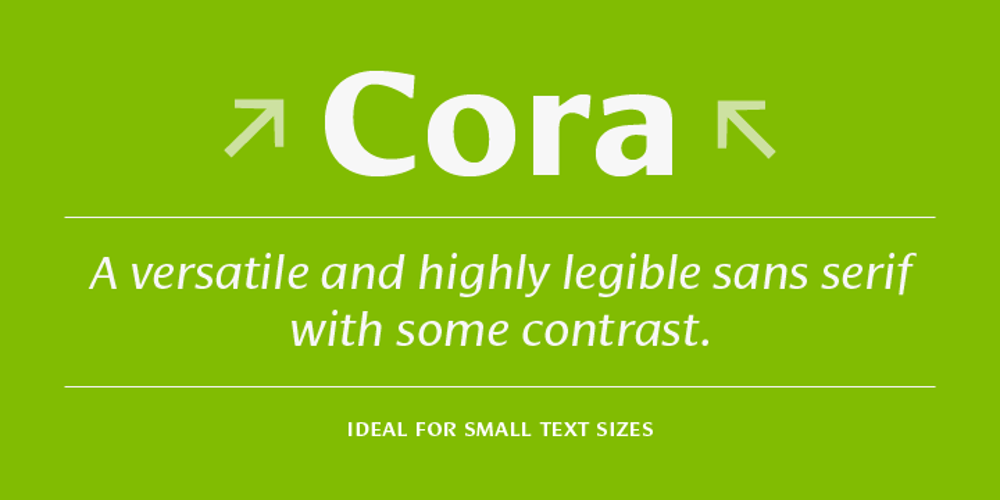
Cora
Cora font
Cora Font Family was designed by Bart Blubaugh and published by TypeTogether. Cora contains 6 styles and family package options. Cora is a sans serif with an experimental bent, offering a large x-height, some contrast of stroke weight, and capitals inspired by classical lettering. The large x-height gives it a voice with a little more volume so that those in the back of the room have no trouble hearing. Because the letters seem slightly large, Cora remains clear at smaller point sizes. It is a typeface intended to perform well on screen without losing its attraction in print and the nature of its shapes allows for condensation or expansion without becoming severely distorted. The uppercase exhibits classical proportions found in ancient Roman inscriptions, which provides opportunities for setting titles in all caps. Cora Opentype Pro has a full range of numerals for every use, small caps, the most common open type features and supports many languages that use the latin extended alphabet. It is available in a range of three weights plus Italics. CoraBasic is a reduced version of Cora. It is still an OT-font but without any particular features except of a set of ligatures, class-kerning and language support including CE and Baltic.